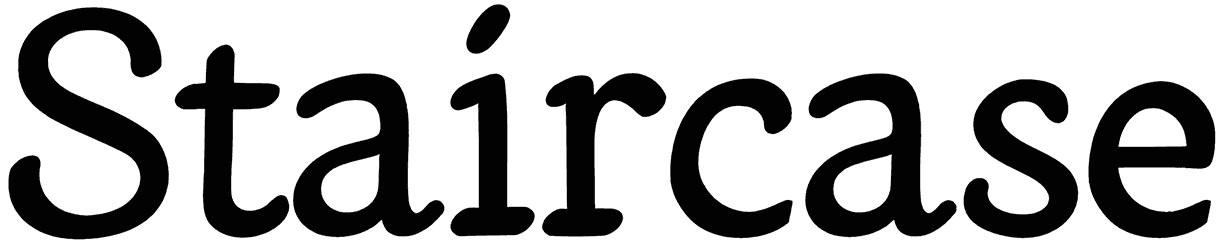
LT Staircase Font
If you want to have a classic, readable, and soft face for your words, this smooth book font would be a ravishing option. A-Z characters in two versions are available and you can use them for your creative ideas. From fo…
If you want to have a classic, readable, and soft face for your words, this smooth book font would be a ravishing option. A-Z characters in two versions are available and you can use them for your creative ideas. From formal to informal projects such as a designer business card and slides of PowerPoint for a presentation, LT Staircase font will be a professional item.
A body text font usable font 1930’s title cards or anything of the like.
Part of LyonsType Classics.